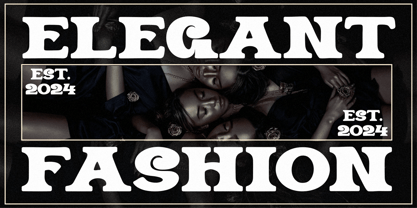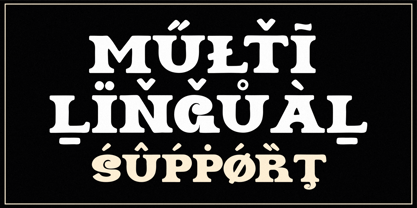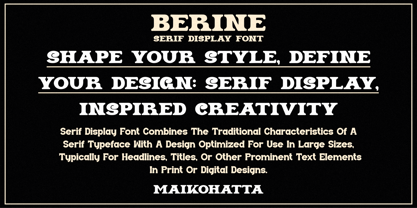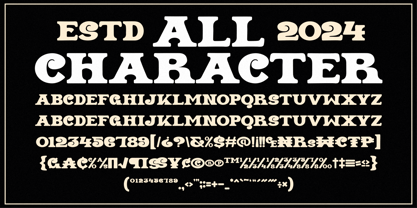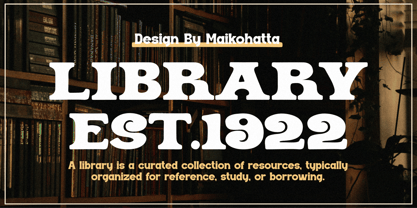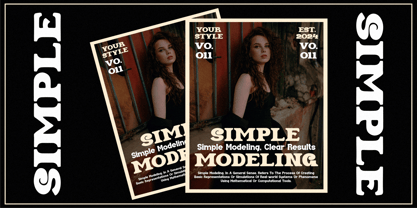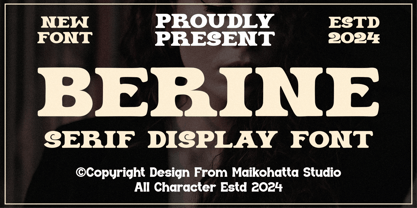
Berine
by Maikohatta
The Berine Font Family was designed by Gilang Ternadho and published by Maikohatta. Berine contains 1 styles. More about this family
Introducing our new product Berine - Serif Display Font
This font has a series of small or decorative projections called serifs at the ends of its characters. Serifs provide a more formal, classic, and easy-to-read appearance to printed text. Serif fonts are often used in formal documents, books, and print publications because of their good legibility at small text sizes.
Designers: Gilang Ternadho
Foundry: Maikohatta